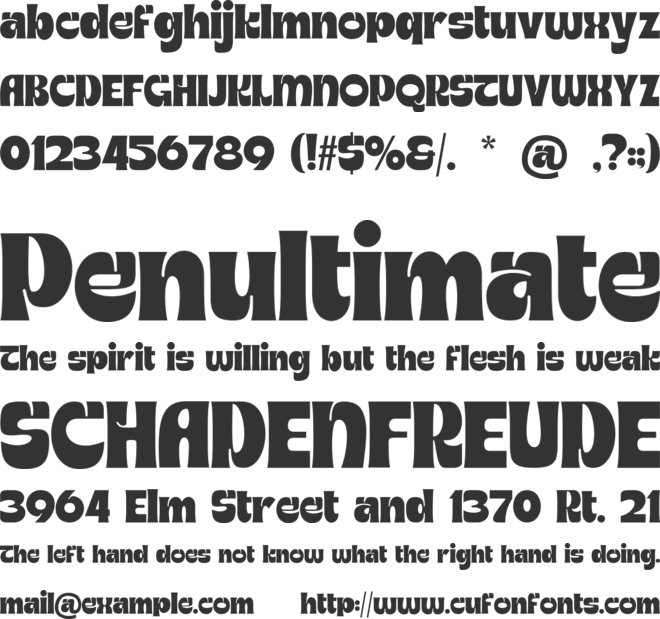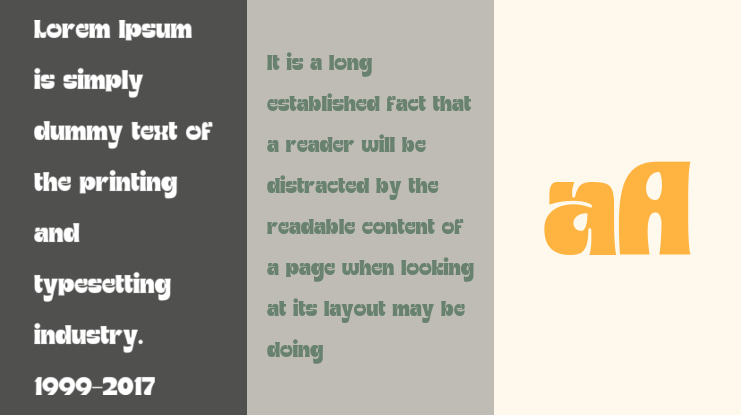
Liquid galaxy Font
I Kadek Paniawan
Liquid Galaxy: The Ultimate Funky Retro Typeface
Step back into the groove and let your designs flow with Liquid Galaxy—a brand new, ultra-funky retro typeface proudly presented by Alit Design Studio.
Liquid Galaxy isn't just a font; it’s a colorful flash of rhythm, nostalgic swagger, and timeless cool. Inspired by the carefree energy of vintage clubbing expos, 70s psychedelic posters, and neon memories, this typeface is built to make every beat of your design feel alive. With its bold, sweeping curves and playful bounce, Liquid Galaxy delivers a massive dose of retro personality while maintaining modern versatility.